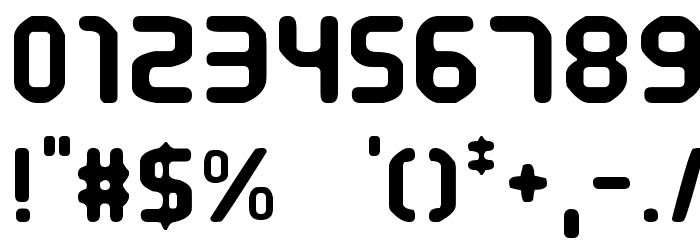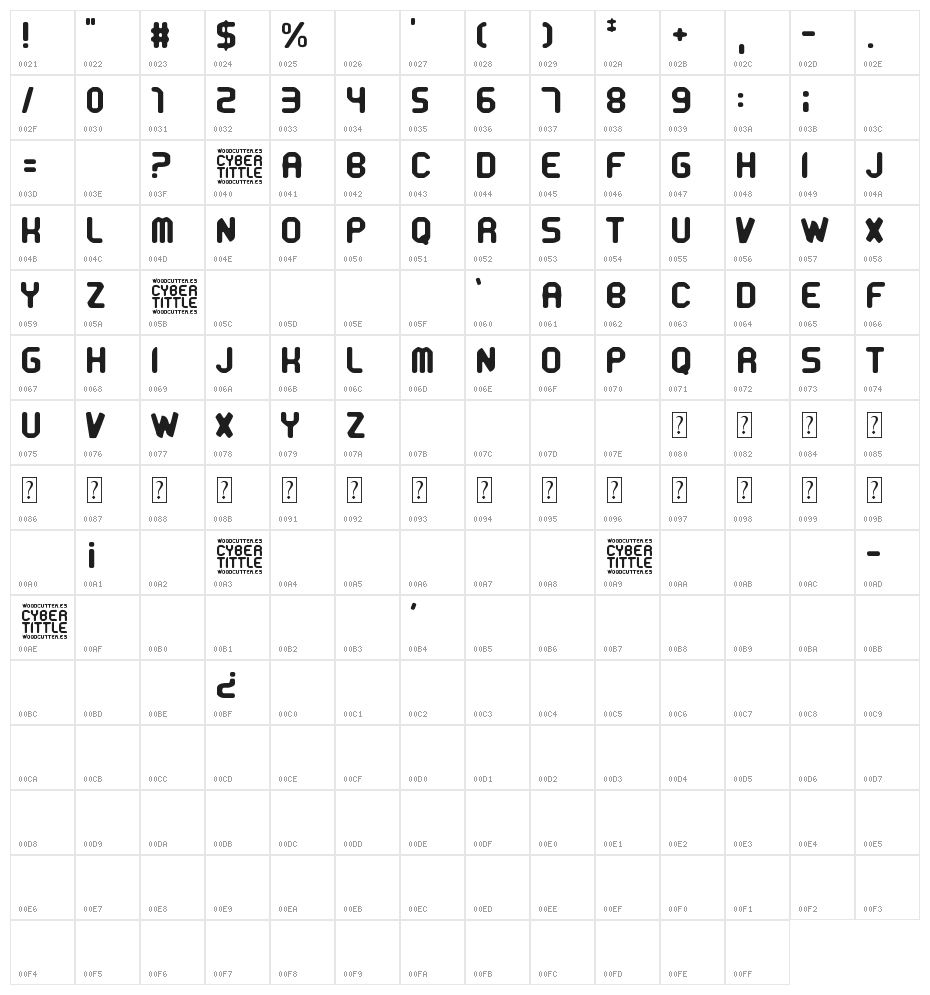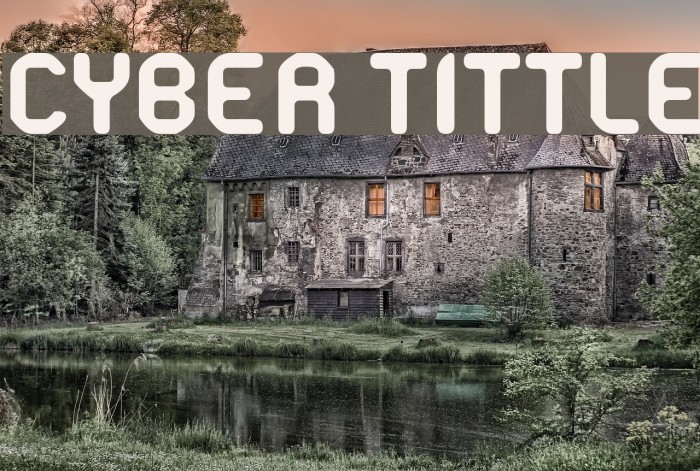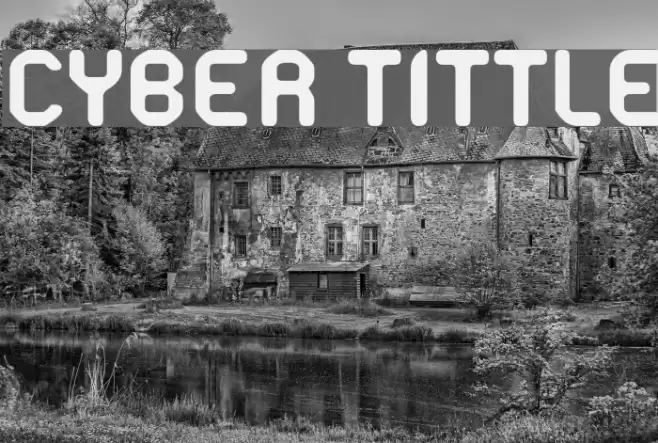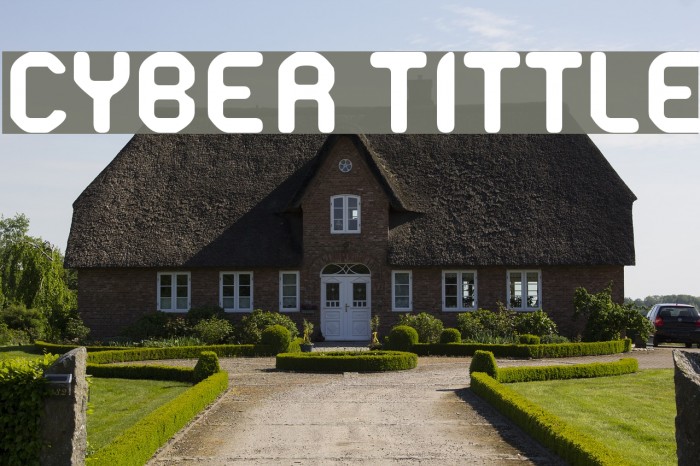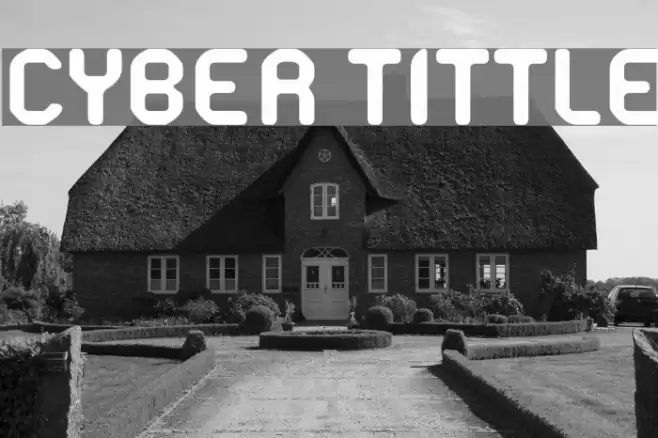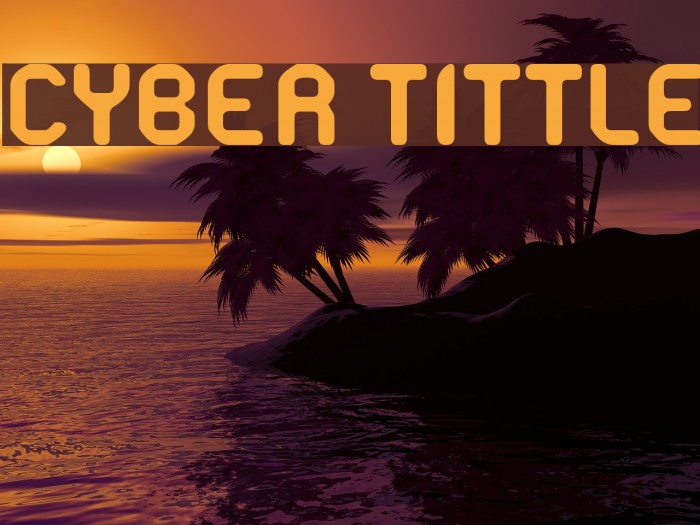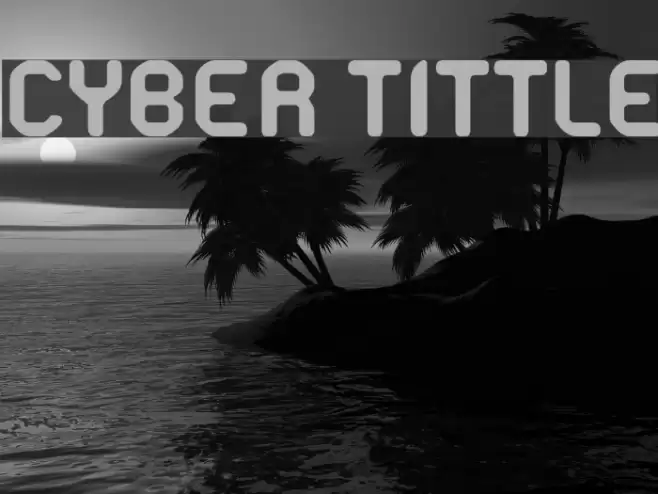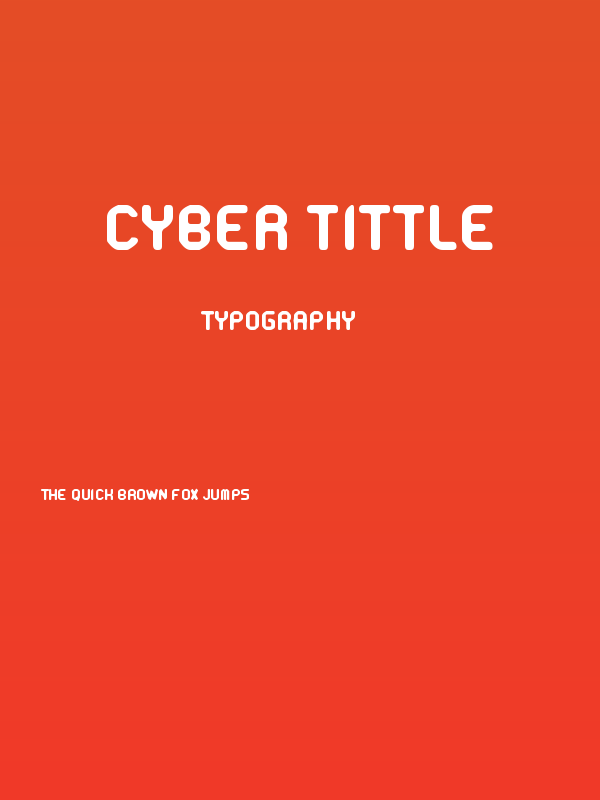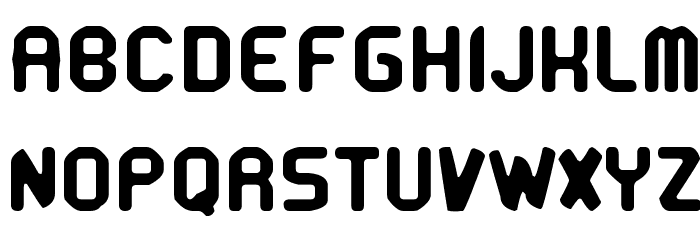
Cyber Tittle Font
Cyber Tittle Description
This font features a bold, futuristic design with rounded edges and a uniform stroke width. The characters are geometric and structured, giving a sense of modernity and technological advancement. The uppercase letters are consistent in height, while the lowercase letters maintain a similar width, creating a cohesive look. The numbers are clear and distinct, with a similar style to the letters, ensuring readability. Special characters are designed to match the overall aesthetic, with a focus on simplicity and clarity. This font is ideal for projects that require a modern, digital feel.
| Use Case | Headlines, Logos, Digital Interfaces |
| Proposed Projects | Ideal for technology branding, digital interfaces, video game titles, and futuristic-themed designs. |